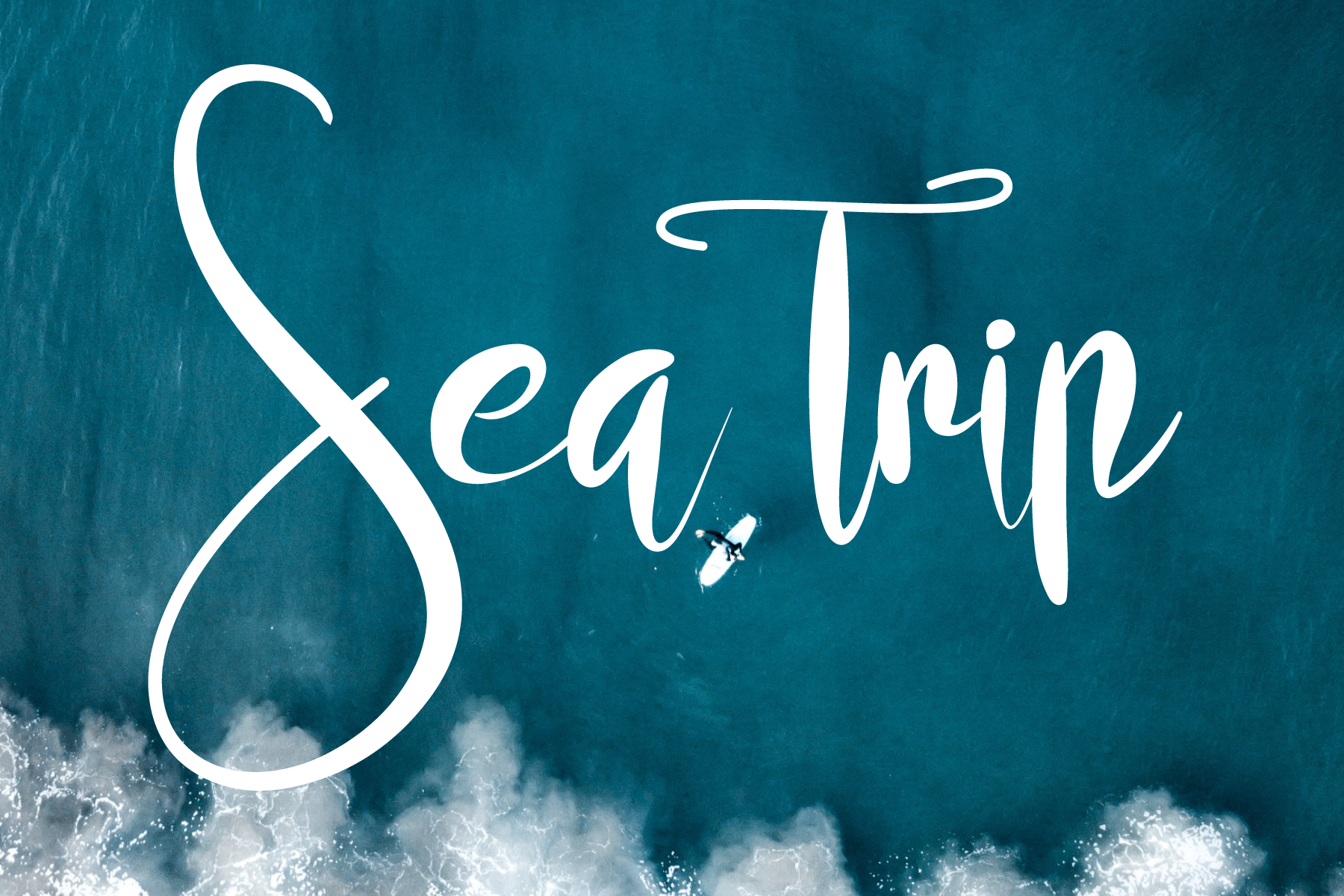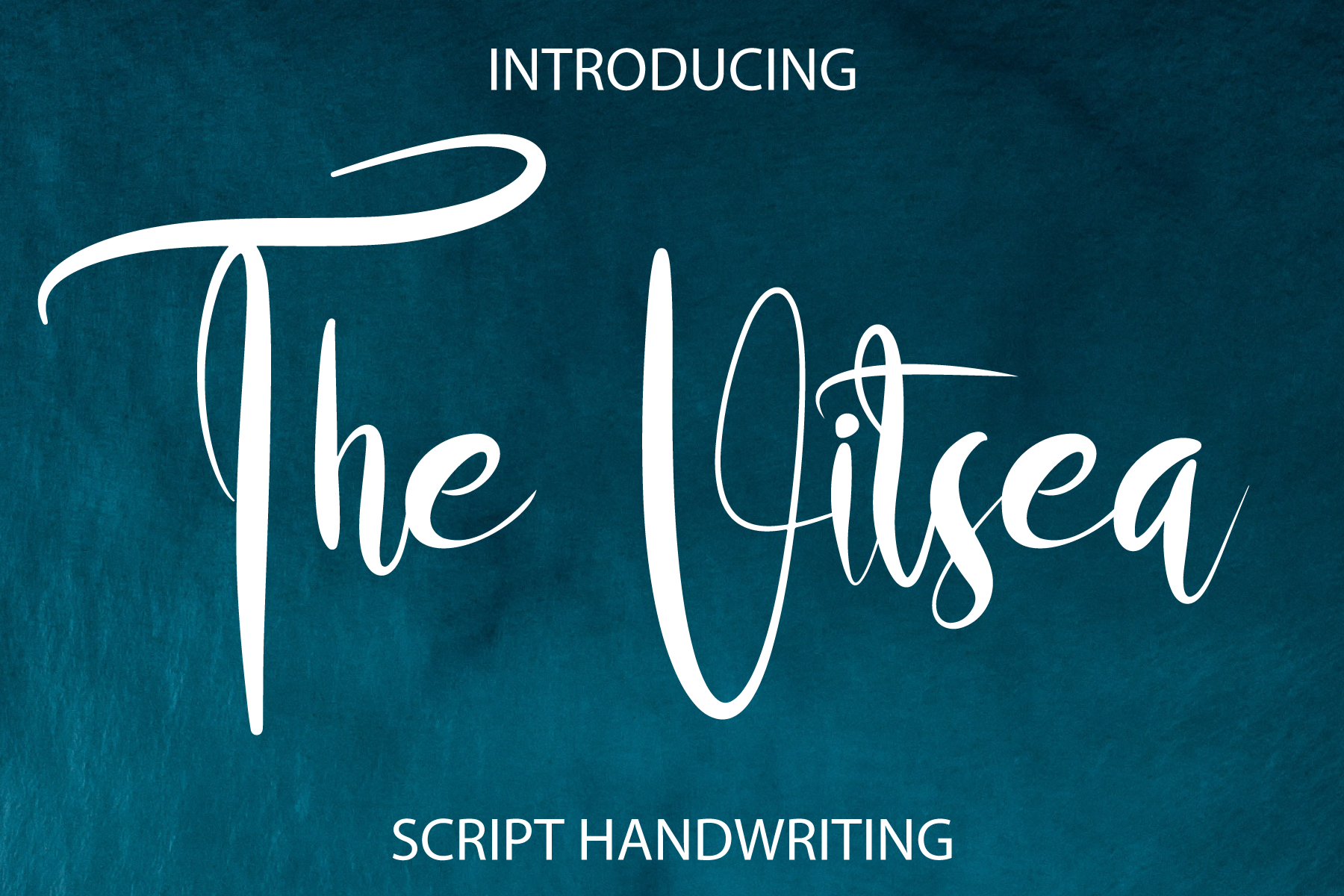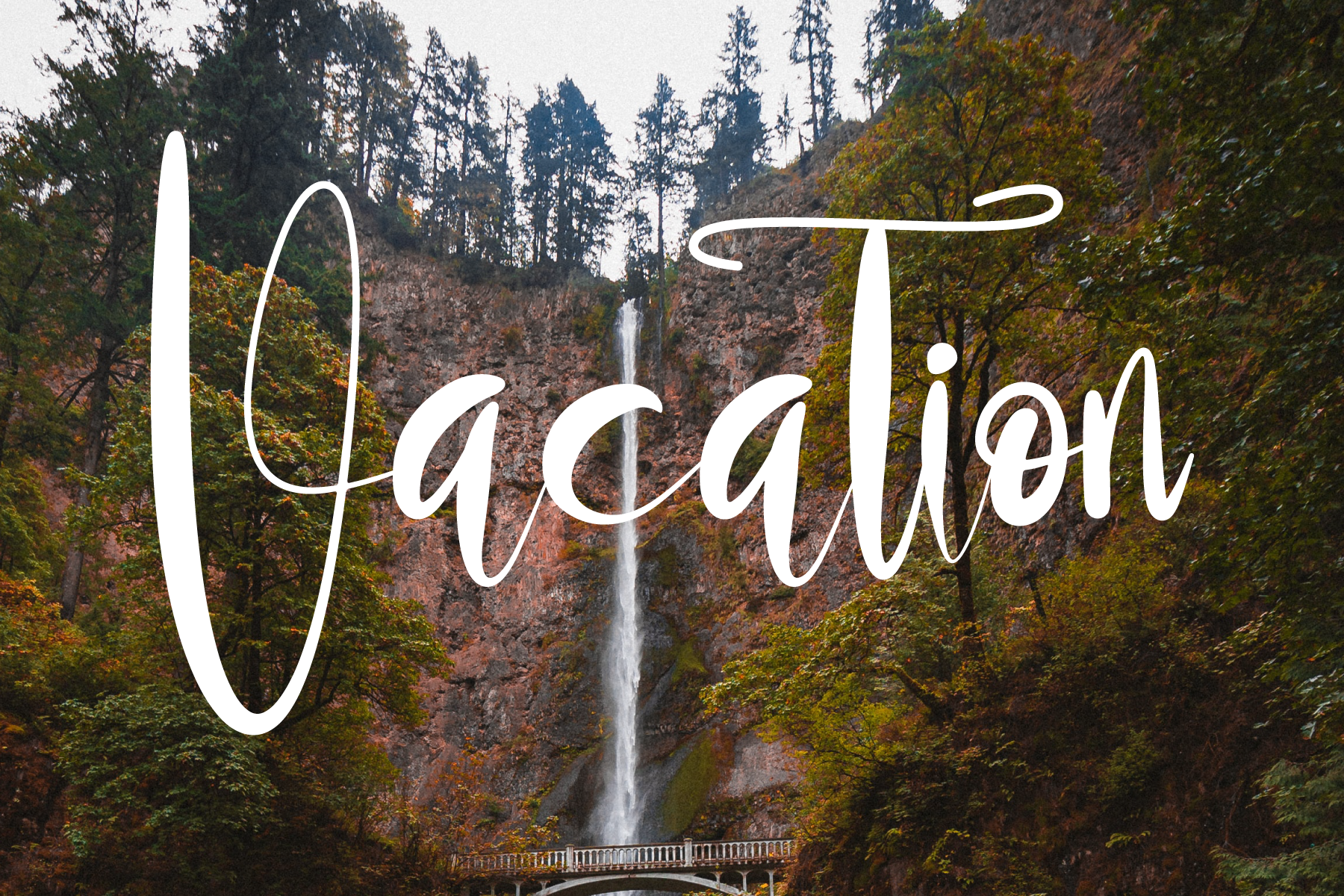
The vitsea Script Font
This is a gorgeous script font. No matter the topic, this font will be an incredible asset to your fonts’ library, as it has the potential to elevate any creation.